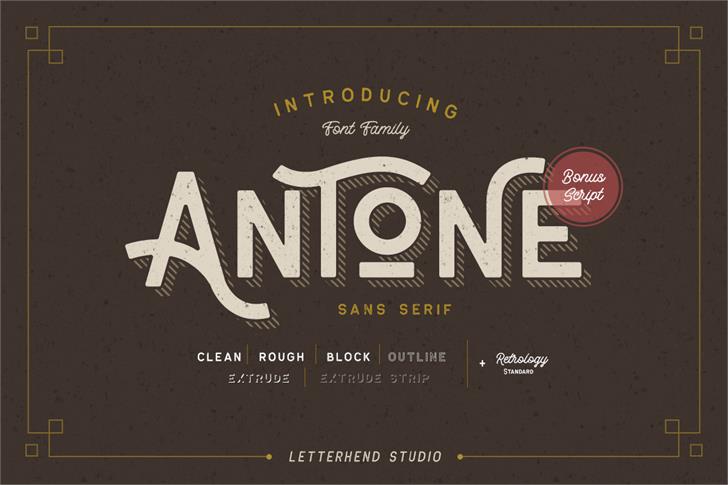
Free Antone Display Vintage Font
Introducing you to the absolutely beautiful free antone display vintage font. This is a downloadable typeface file brought to you by Letterhend Studio. Amaze your fellow designers and create stunning designs with this fancy font.